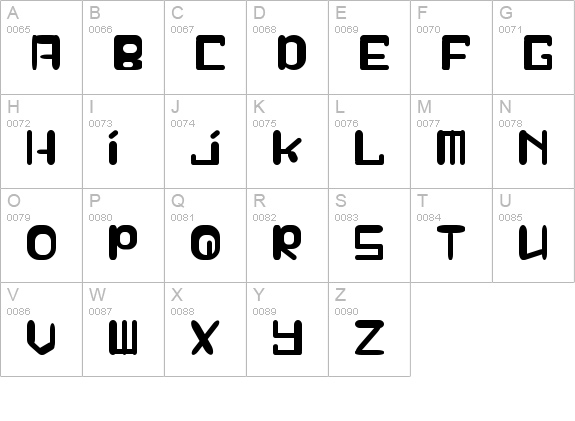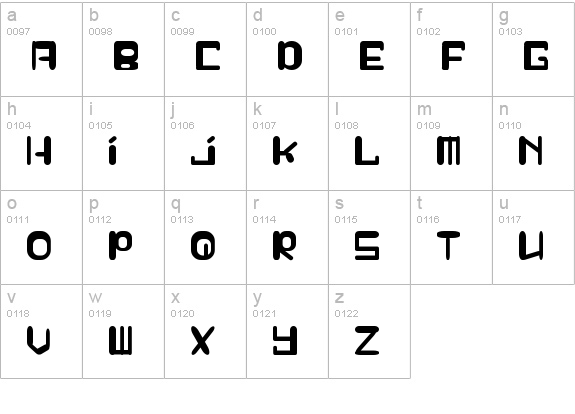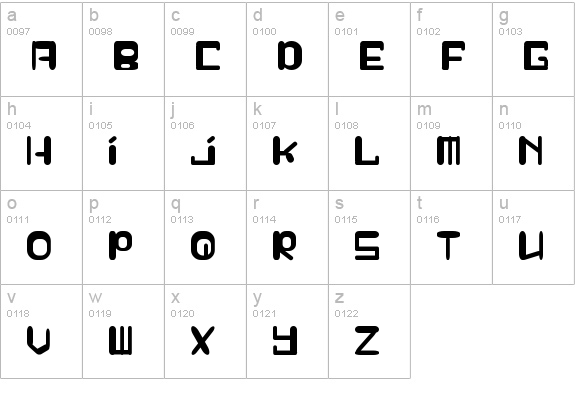
Squeezy Cheez Font Details
Introducing Squeezy Cheez, the font that will add a delightful touch of whimsy to any project! With its quirky and playful design, Squeezy Cheez captures the essence of fun and lightheartedness. Each letter is meticulously crafted to resemble the squishy texture of a delicious block of cheese, creating a unique and eye-catching visual experience. But what makes Squeezy Cheez even more amazing is that it is absolutely free! That's right, this fantastic font is freely available to download at FontsMarket.com. Whether you're a designer working on a cheesy-themed project or simply want to inject some cheesy goodness into your designs, Squeezy Cheez is the perfect choice. This font is versatile and can be used in a variety of designs, from logos and branding to invitations and social media graphics. Its distinct and memorable appearance will make your creations stand out from the crowd. So why settle for boring and ordinary when you can have the cheesy charm of Squeezy Cheez? Downloading Squeezy Cheez is a breeze. Just head over to FontsMarket.com and grab your free copy today. With its wide range of characters and extensive language support, this font is ready to take your designs to a new level of cheesy awesomeness. So go ahead, embrace the cheesiness and let Squeezy Cheez be the secret ingredient that adds a sprinkle of fun to your next project. Download it now and let your creativity ooze with cheesy goodness!